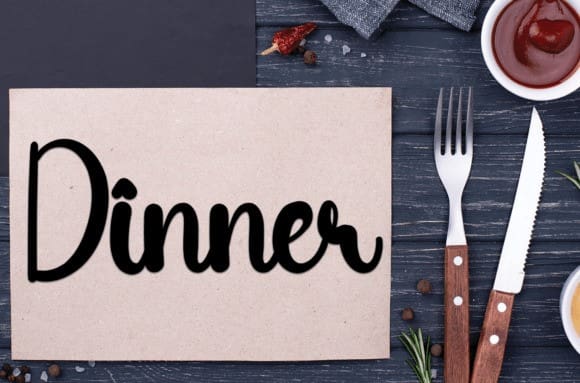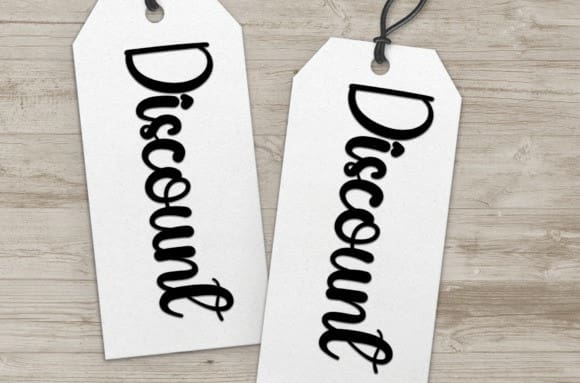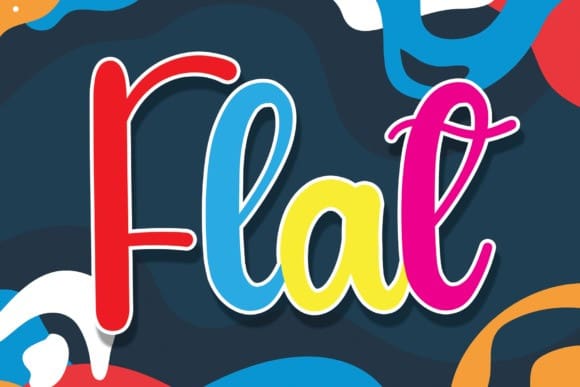
Flat Script Font
Flat Script Font is a sweet and friendly handwritten font. Fun and relaxed, this font is ideal for writing wedding invitations, cards, or any other design that might need a joyful touch!